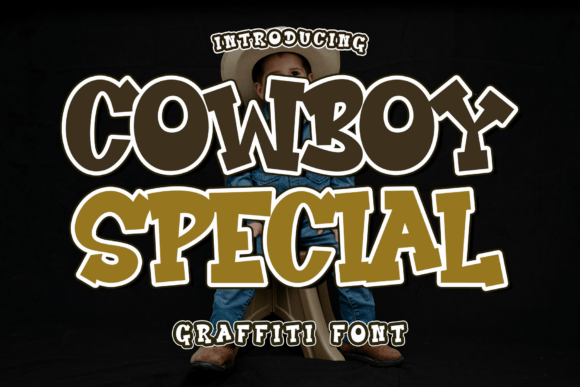
Cowboy Special Font: A Bold and Energetic Graffiti-Style Display Font with a Western Twist
In the world of typography, fonts play a crucial role in conveying the tone and personality of a brand, product, or service. When it comes to making a bold statement, a font with a unique character is essential. This is where the Cowboy Special font comes in – a bold and energetic graffiti-style display font that combines the charm of the wild west with the edginess of urban street culture.
What is Cowboy Special Font?
Cowboy Special is a bold and energetic graffiti-style display font designed with a western twist. Its chunky, layered lettering and playful irregularities give it a rebellious, youthful attitude that’s perfect for making a statement. This font is ideal for use in poster headlines, kids’ party themes, streetwear branding, or any project that requires a bold, stand-out vibe.
Key Features of Cowboy Special Font
The Cowboy Special font boasts several key features that make it a unique and versatile choice for designers and brands. Some of its notable features include:
- Bold and Energetic: The font’s bold and energetic design makes it perfect for grabbing attention and making a statement.
- Graffiti-Style: The font’s graffiti-style design gives it a playful, urban feel that’s perfect for streetwear branding and kids’ party themes.
- Western Twist: The font’s western twist adds a touch of wild west charm, making it ideal for projects that require a bold, adventurous vibe.
- Chunky, Layered Lettering: The font’s chunky, layered lettering gives it a rebellious, youthful attitude that’s perfect for making a statement.
- Playful Irregularities: The font’s playful irregularities add to its unique character, making it stand out from more traditional fonts.
Use Cases for Cowboy Special Font
The Cowboy Special font is a versatile choice that can be used in a variety of projects, including:
- Poster Headlines: The font’s bold and energetic design makes it perfect for use in poster headlines, where it can grab attention and make a statement.
- Kids’ Party Themes: The font’s playful, urban feel makes it ideal for kids’ party themes, where it can add a fun and adventurous touch.
- Streetwear Branding: The font’s graffiti-style design and western twist make it a great choice for streetwear branding, where it can add a bold, edgy vibe.
- Urban Fashion: The font’s urban feel and bold design make it perfect for use in urban fashion projects, such as clothing labels and accessories.
Benefits of Using Cowboy Special Font
Using the Cowboy Special font in your projects offers several benefits, including:
- Unique Character: The font’s unique character and bold design make it stand out from more traditional fonts.
- Attention-Grabbing: The font’s bold and energetic design makes it perfect for grabbing attention and making a statement.
- Versatility: The font’s versatility makes it suitable for use in a variety of projects, from poster headlines to streetwear branding.
- Memorability: The font’s unique character and bold design make it more memorable than more traditional fonts.
- Choose the Right Size: The font’s bold design makes it perfect for use in large sizes, such as poster headlines.
- Experiment with Colors: The font’s bold design makes it suitable for use with a variety of colors, from bold and bright to more muted tones.
- Pair with Other Fonts: The font’s unique character makes it a great choice for pairing with other fonts, such as more traditional serif fonts.
In conclusion, the Cowboy Special font is a bold and energetic graffiti-style display font with a western twist. Its chunky, layered lettering and playful irregularities give it a rebellious, youthful attitude that’s perfect for making a statement. With its versatility and unique character, this font is a great choice for designers and brands looking to add a bold, stand-out vibe to their projects.